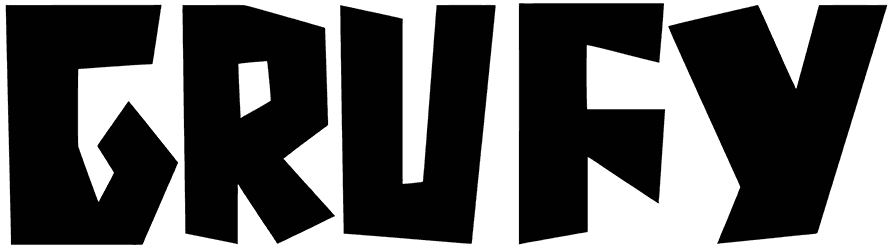
Grufy Font
Choosing a graffiti font will let you adorn your typography with a cool and artistic face and give it a playful form at the same time. The Grufy font has bold and funny letters that can easily hook a lot of observers. Ev…
Choosing a graffiti font will let you adorn your typography with a cool and artistic face and give it a playful form at the same time. The Grufy font has bold and funny letters that can easily hook a lot of observers. Even though this cartoon font doesn’t include lowercase letters, it can be added to your children’s poster or a video game, and make them charming.